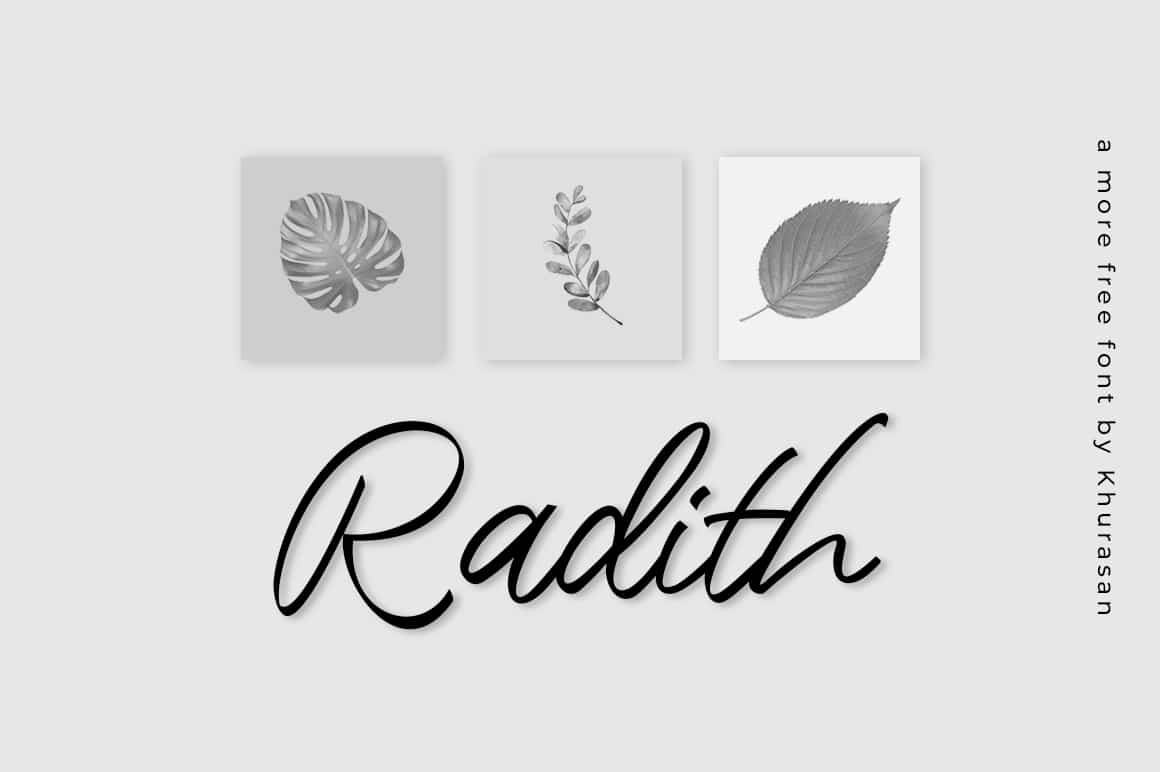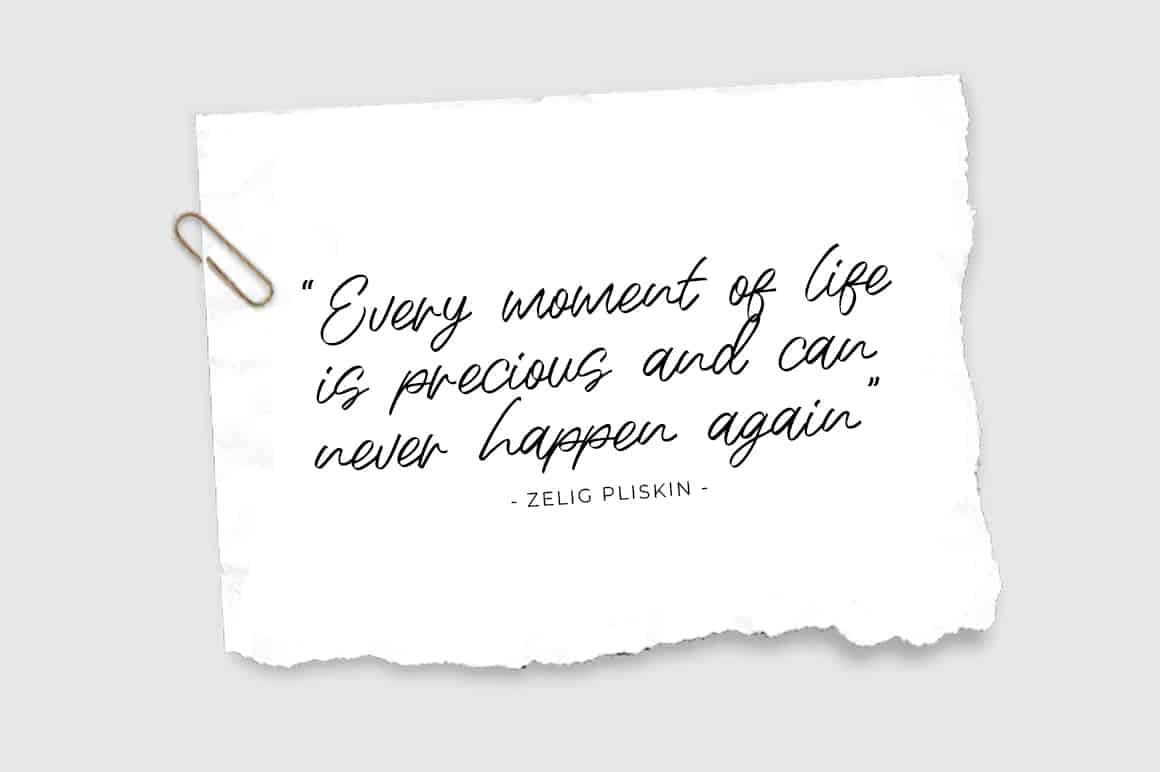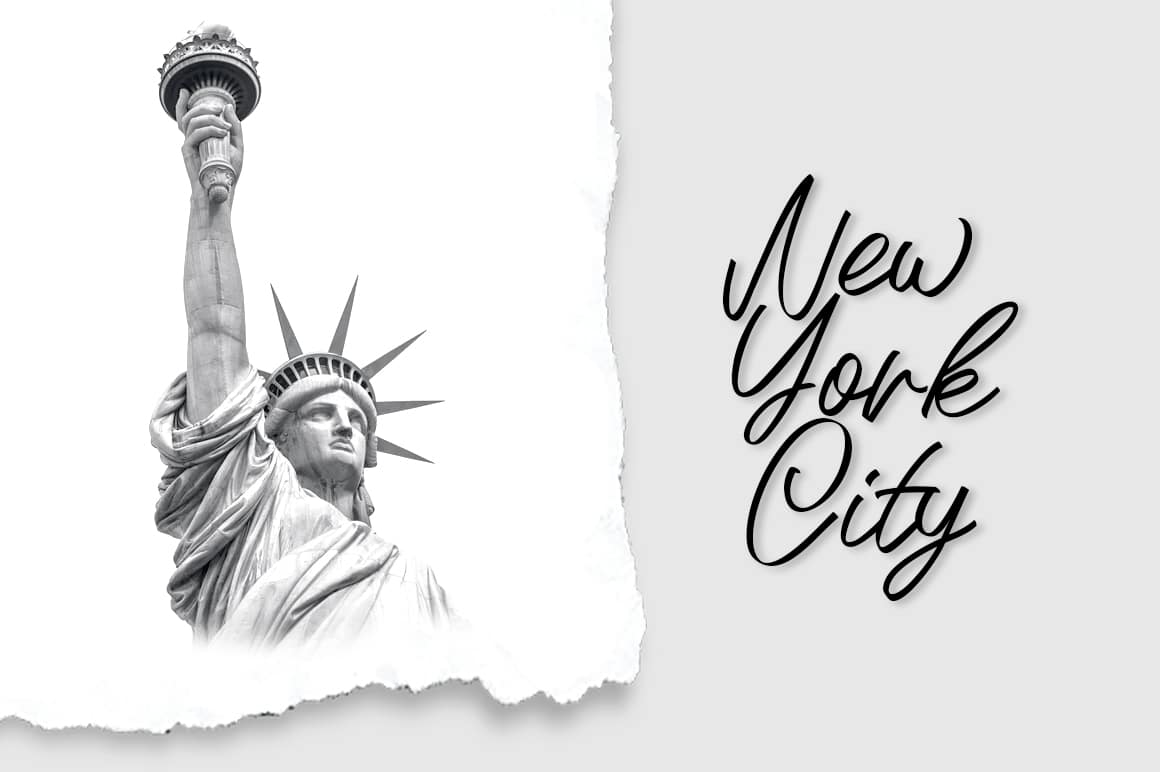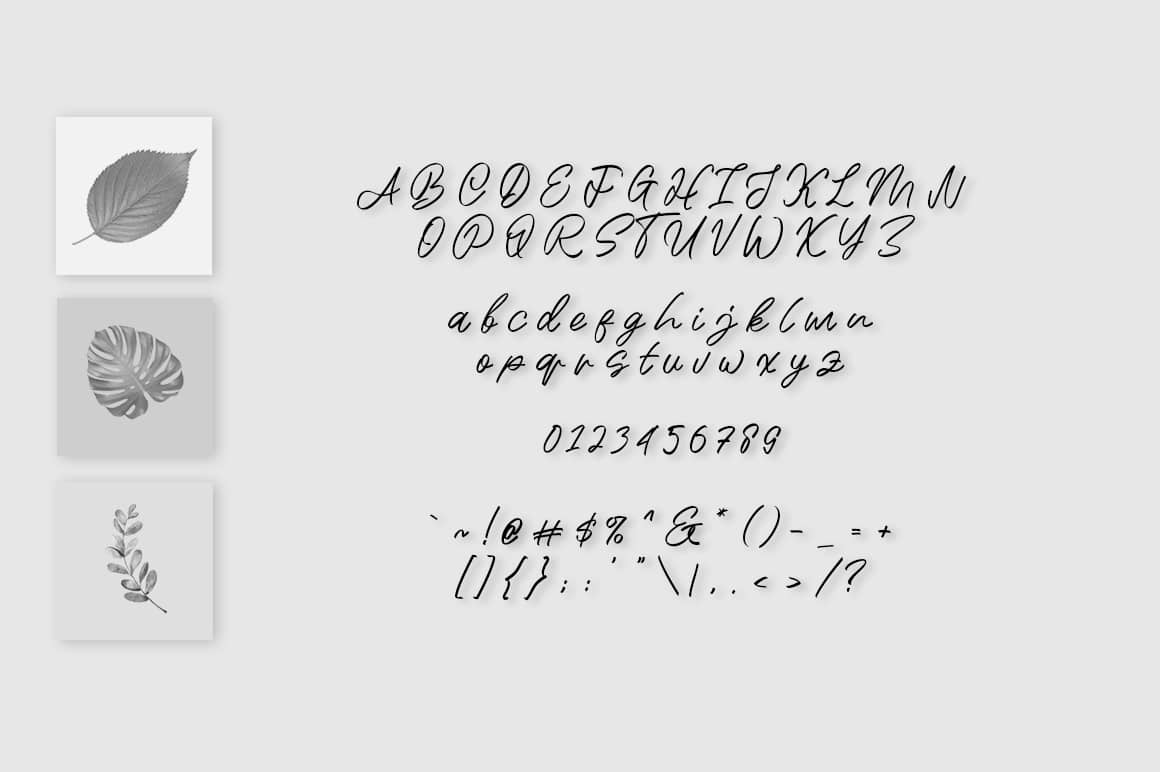
Radith Font
Radith is a modern script and handwritten font perfect for posters, logos, magazines, book covers, banners, and many more! Get this amazing freebie, and use it to create lovely designs!